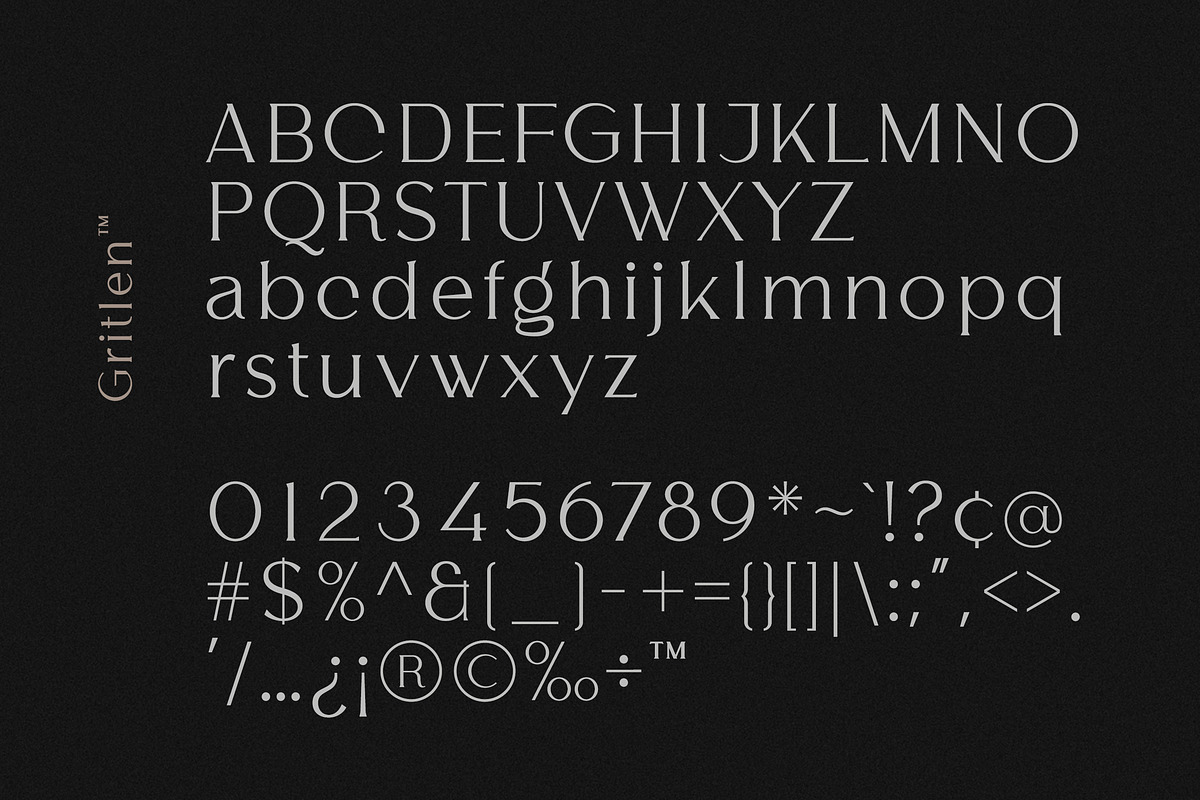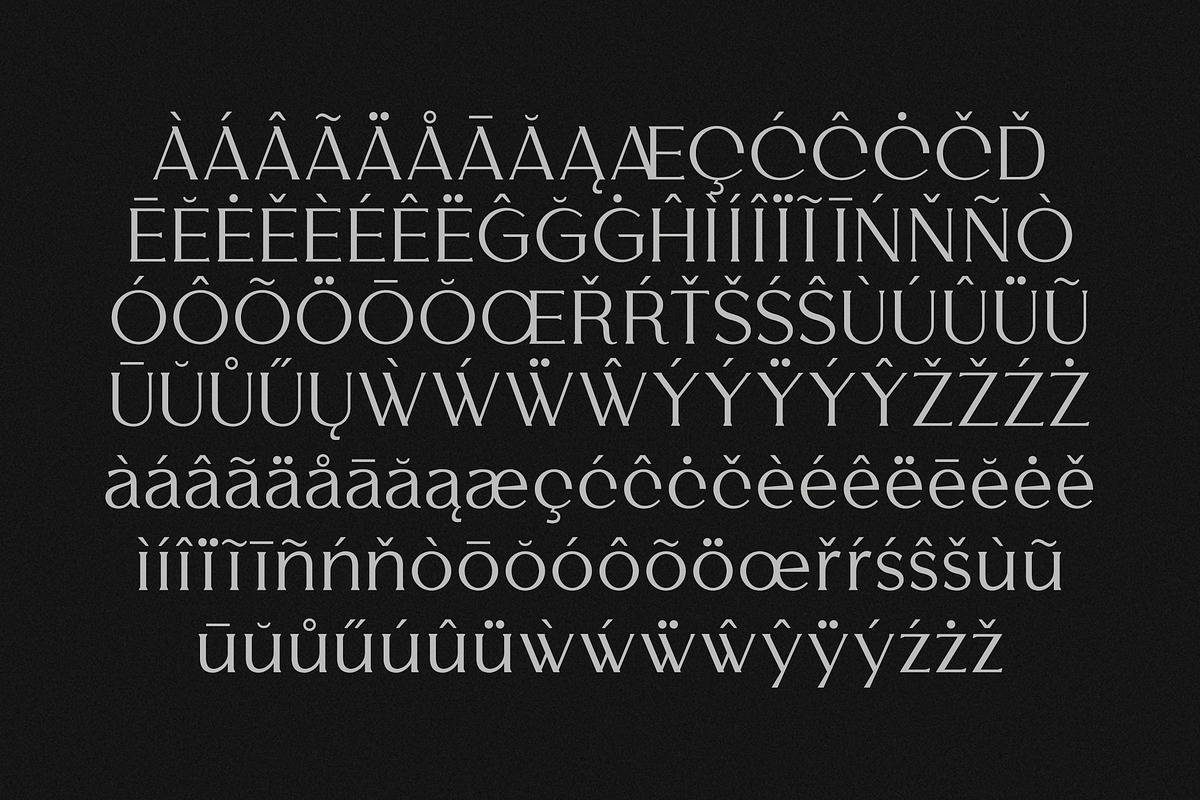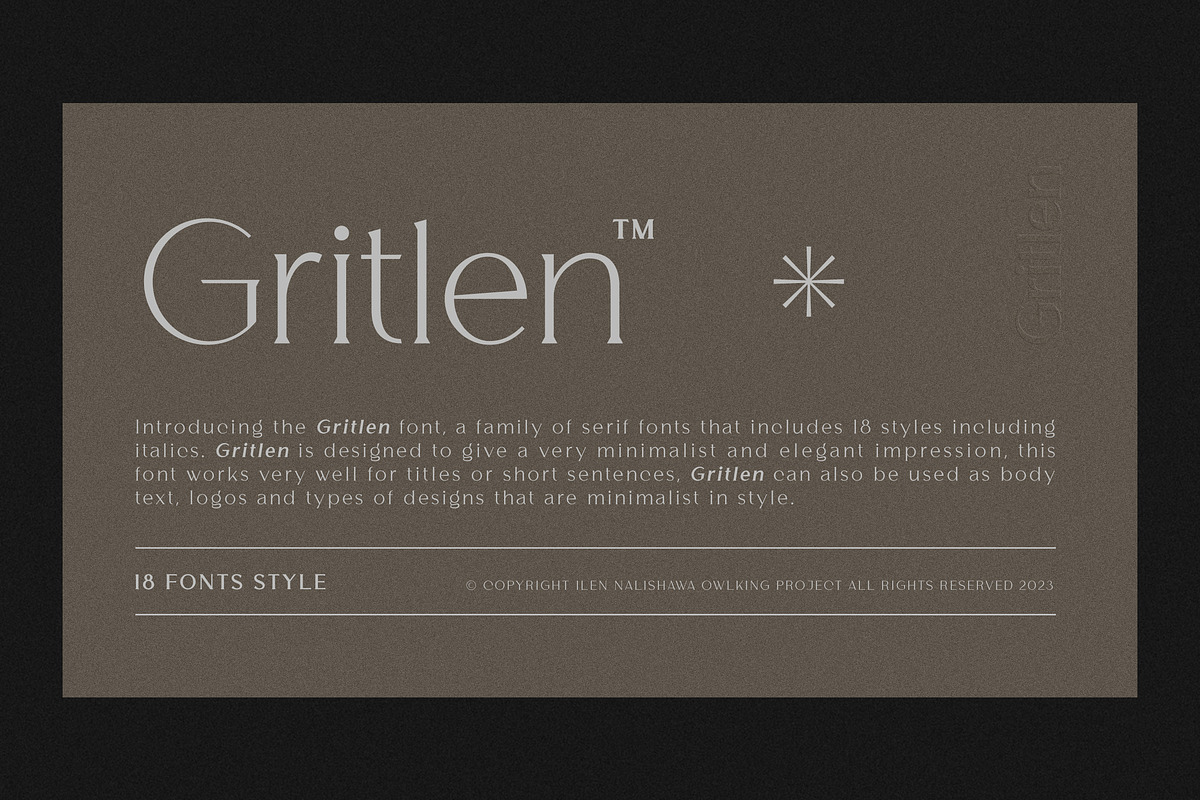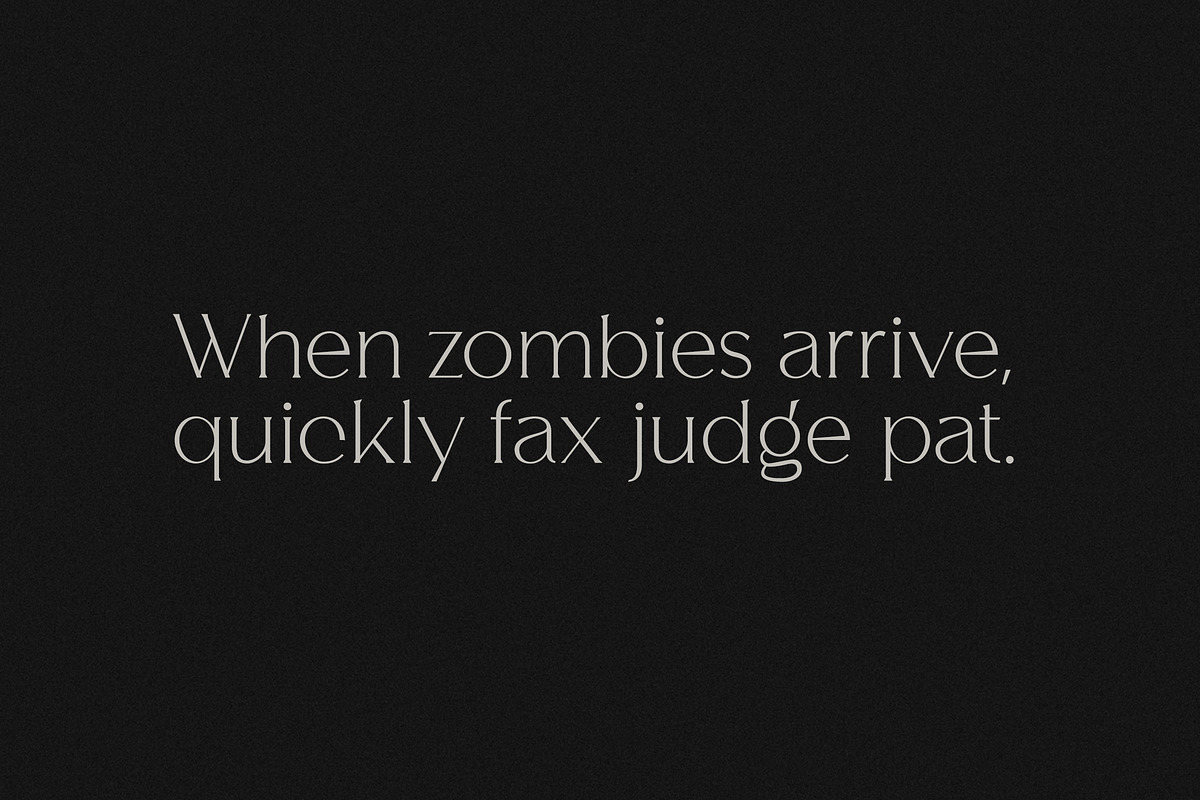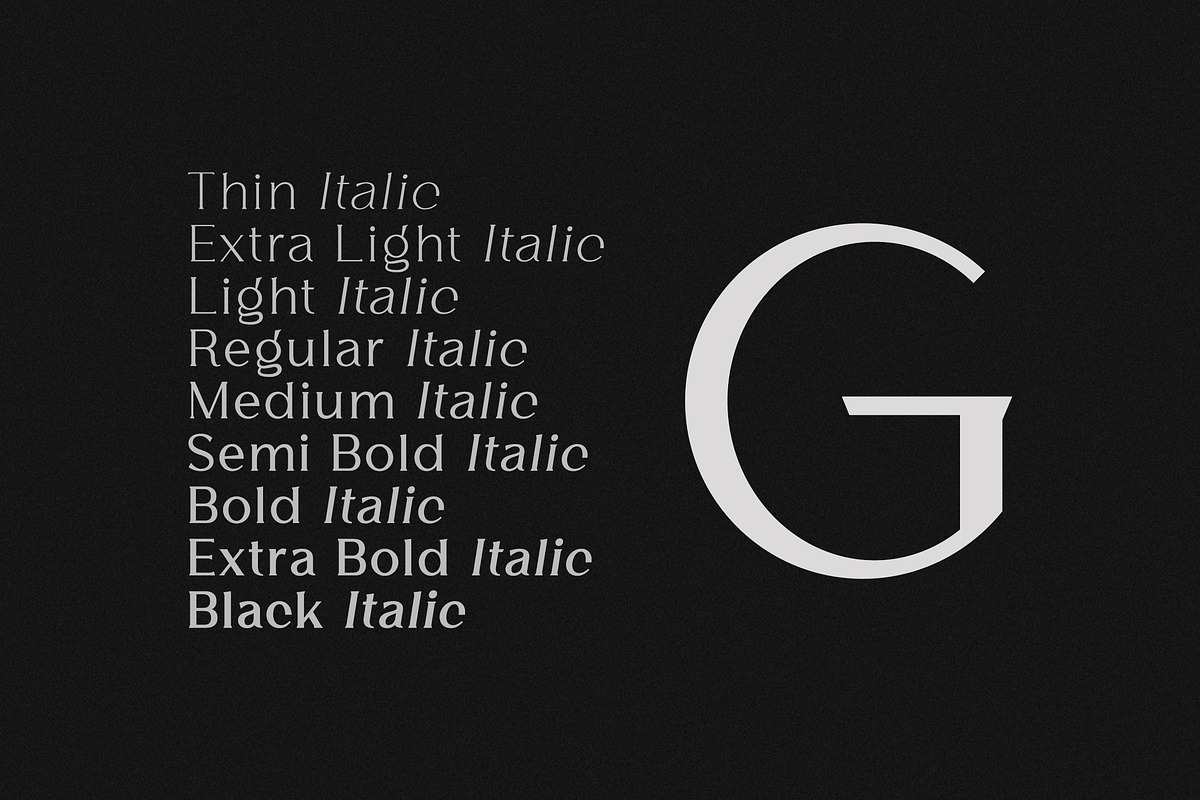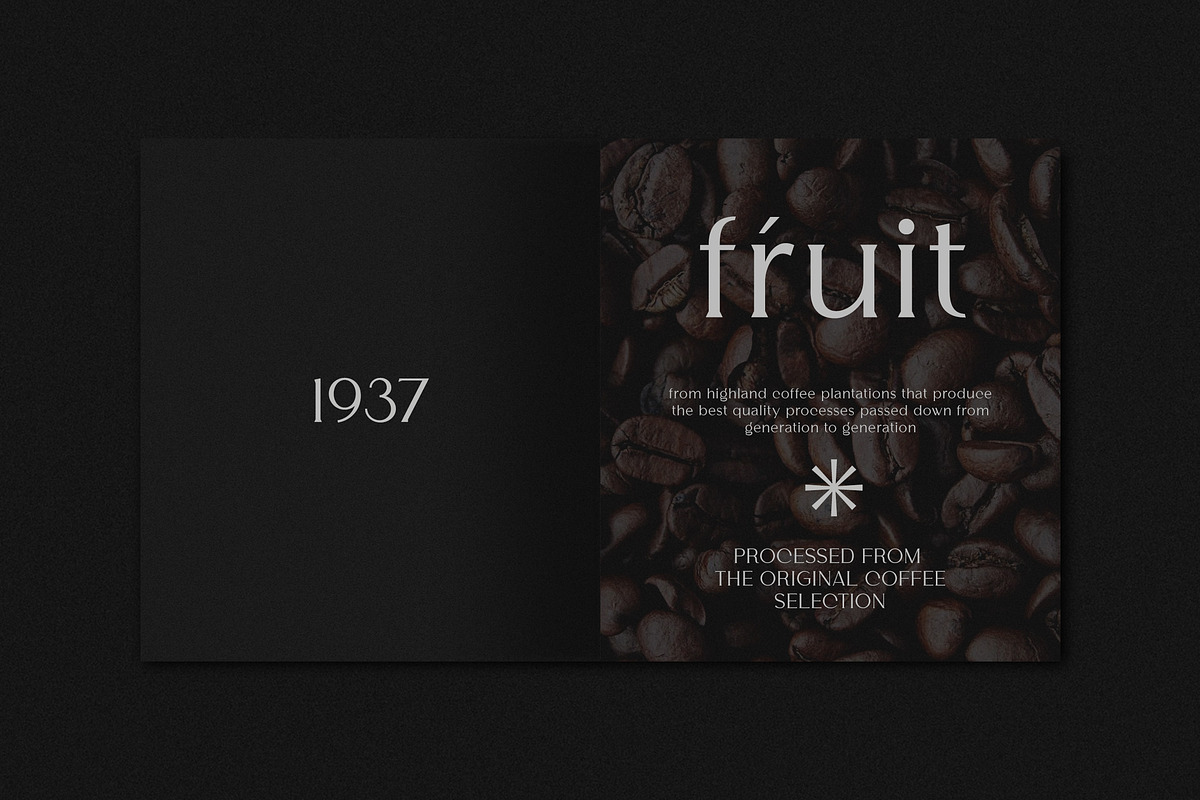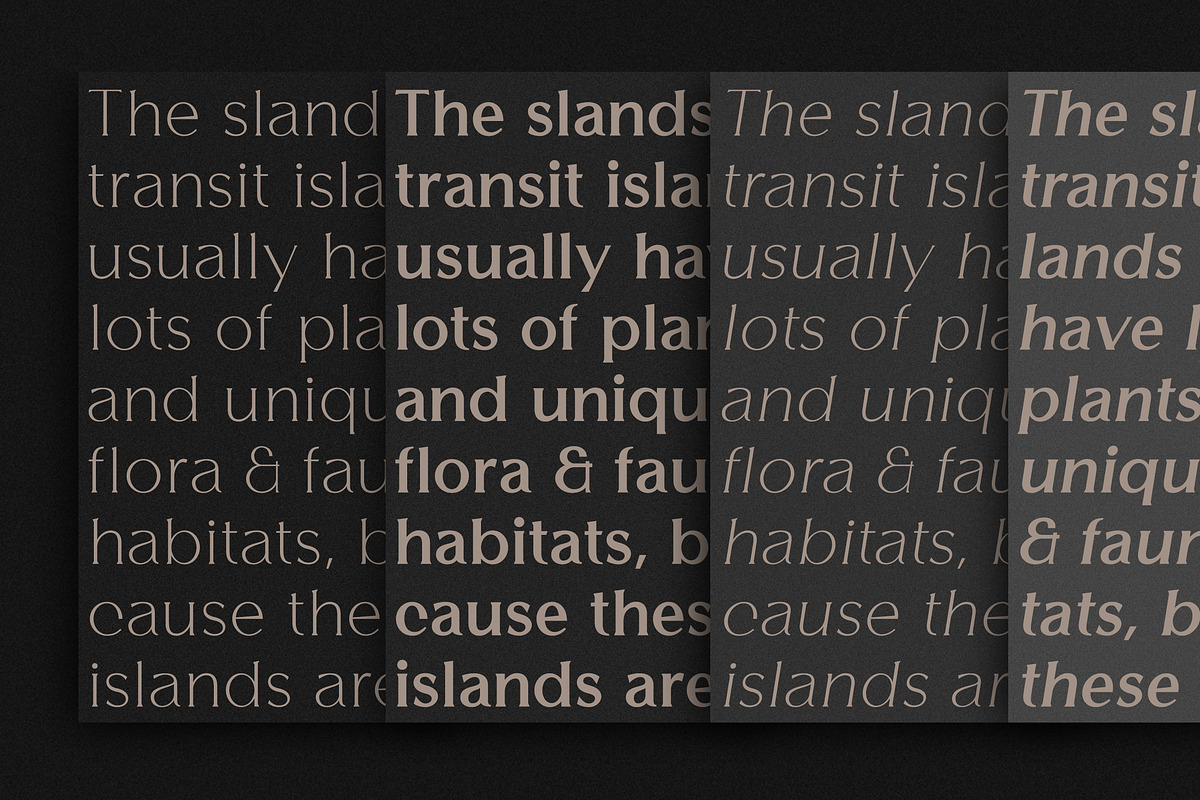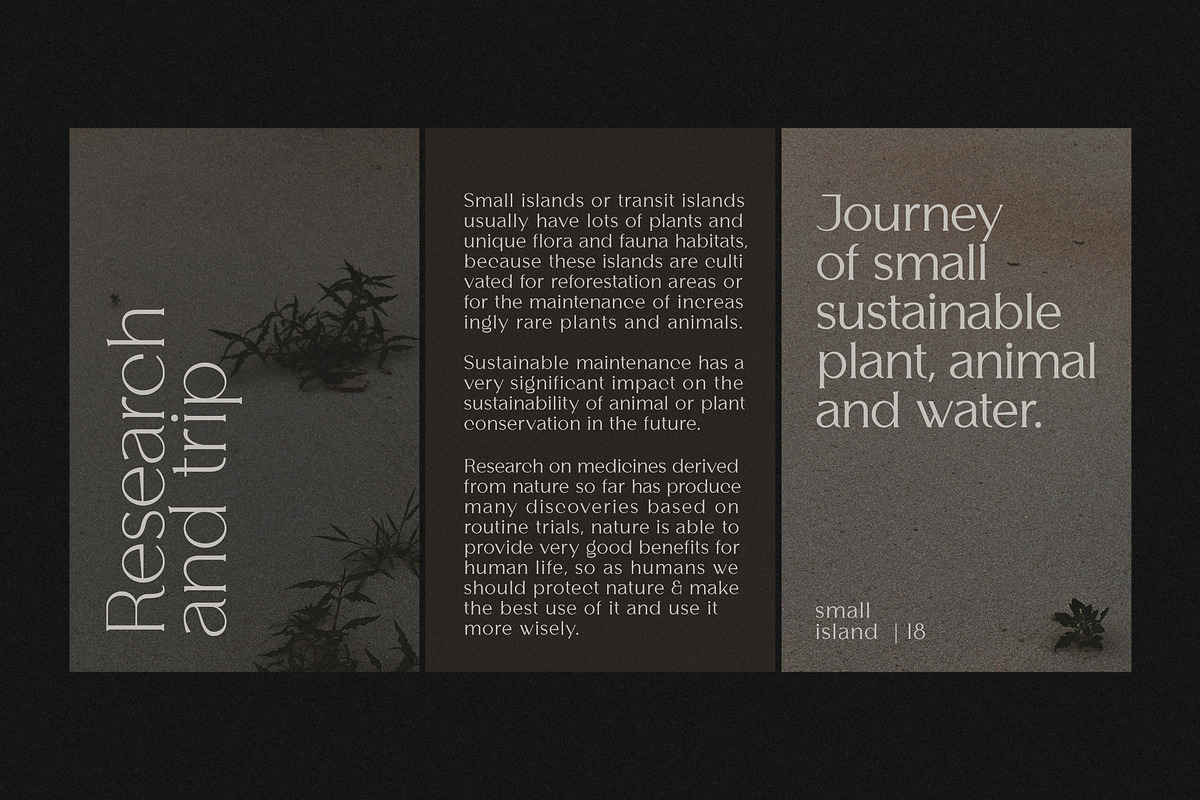
Gritlen
Introducing the Gritlen font, a family of serif fonts that includes 18 styles including italics. Gritlen is designed to give a very minimalist and elegant impression, this font works very well for titles or short sentences, Gritlen can also be used as body text, for logos and types of designs that are minimalist in style.